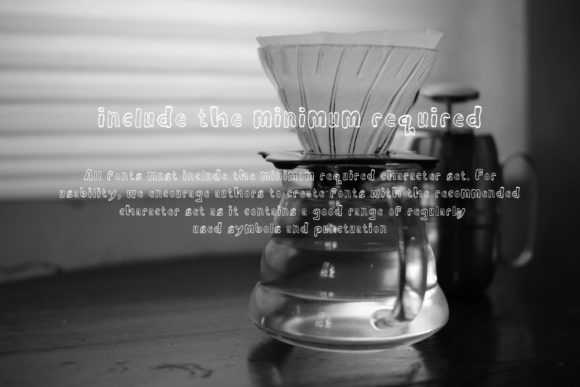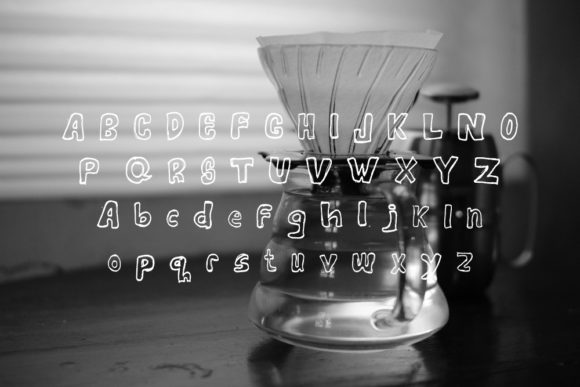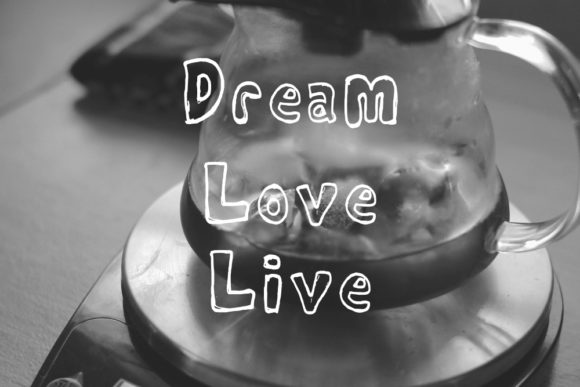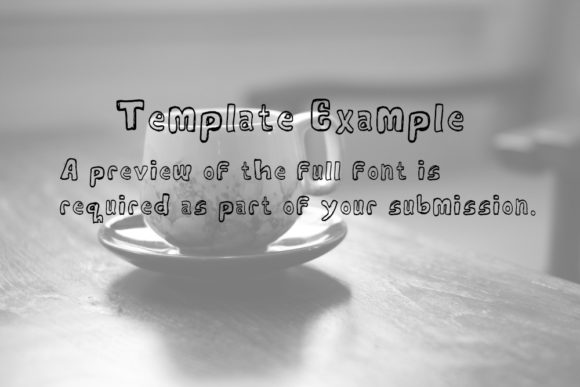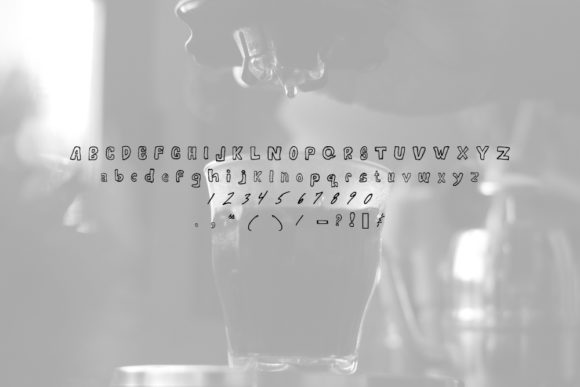
Introducing Amalianida Font: The Perfect Companion for DIY Enthusiasts and Designers
Are you a DIY enthusiast, a crafter, or a designer looking for a unique font to add a personal touch to your projects? Look no further than Amalianida Font! This casual and fun display font is designed to bring a playful and creative vibe to any DIY project, making it stand out from the crowd.
What is Amalianida Font?
Amalianida Font is a carefully crafted display font that exudes a carefree and whimsical spirit. Its distinctive style makes it perfect for a wide range of applications, from handmade crafts and DIY signs to digital designs and branding projects. Whether you’re creating a custom sign, a greeting card, or a social media graphic, Amalianida Font is sure to add a dash of personality and flair.
Key Features of Amalianida Font
- Casual and Fun: Amalianida Font boasts a relaxed and playful vibe that’s perfect for DIY projects and designs that require a personal touch.
- Display Font: Designed specifically for display purposes, Amalianida Font makes a bold statement and grabs attention.
- Unique Style: With its distinctive letterforms and charming aesthetic, Amalianida Font stands out from more traditional fonts.
- Versatile: Suitable for a wide range of projects, from physical crafts to digital designs, Amalianida Font adapts effortlessly to different mediums.
How to Use Amalianida Font in Your Projects
Amalianida Font is incredibly easy to use, making it accessible to designers and crafters of all skill levels. Here are a few ideas to get you started:
- DIY Signs: Add a personal touch to your homemade signs with Amalianida Font. Perfect for garden signs, welcome signs, or directional signs.
- Handmade Crafts: Use Amalianida Font to create custom labels, tags, or cards for your handmade crafts, such as jewelry, candles, or soap.
- Digital Designs: Incorporate Amalianida Font into your digital designs, including social media graphics, blog posts, or website headers, to add a playful touch.
- Branding Projects: Use Amalianida Font to create unique branding elements, such as logos, business cards, or packaging labels, that reflect your brand’s personality.
Why Choose Amalianida Font?
With so many fonts available, why choose Amalianida Font? Here are a few compelling reasons:
- Uniqueness: Amalianida Font offers a distinctive style that sets it apart from more common fonts.
- Ease of Use: Its simplicity and clarity make it easy to read and use in a variety of contexts.
- Creativity: Amalianida Font inspires creativity and encourages you to think outside the box when designing your projects.
Amalianida Font is a game-changer for DIY enthusiasts, designers, and crafters looking to add a personal touch to their projects. Its casual and fun display font style makes it perfect for a wide range of applications, from handmade crafts to digital designs. With its unique style, ease of use, and creative possibilities, Amalianida Font is sure to become a favorite in your design toolkit. So why wait? Download Amalianida Font today and bring your DIY projects to life!